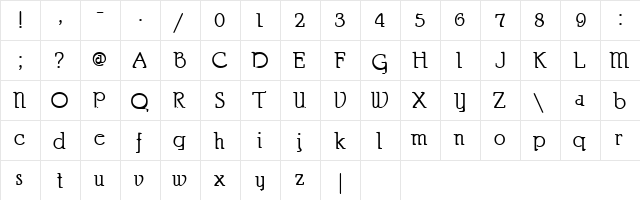
Churchman Regular
Design Context for Churchman Typeface
Churchman takes a measured approach to typography — its balanced proportions and neutral character make it a reliable workhorse for both digital and print work.